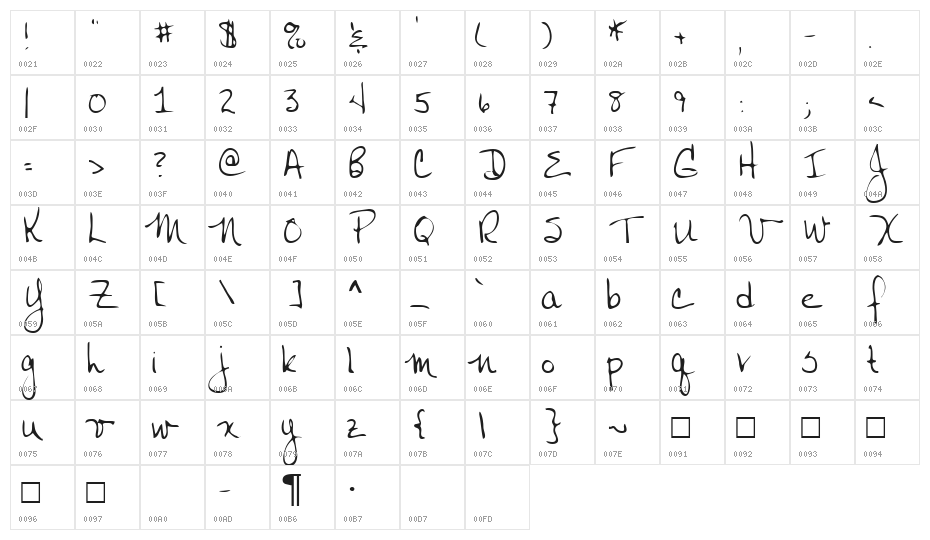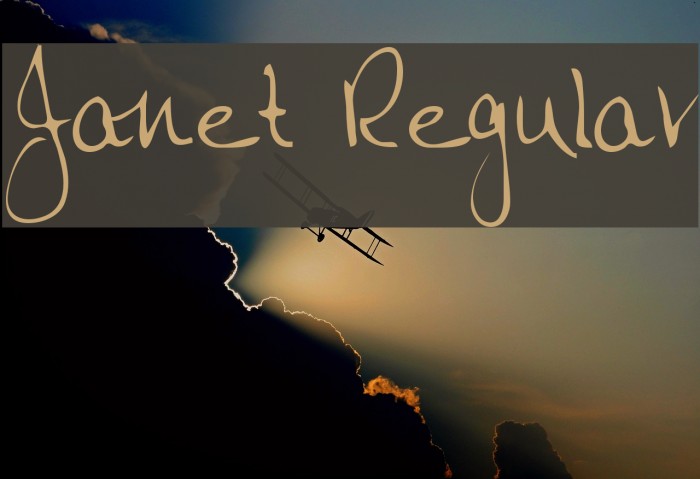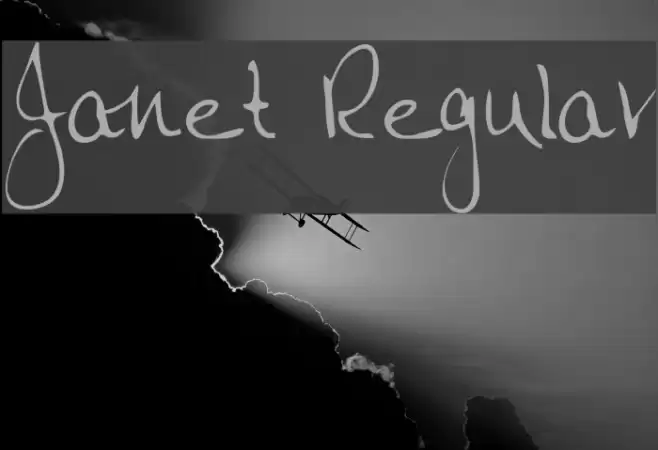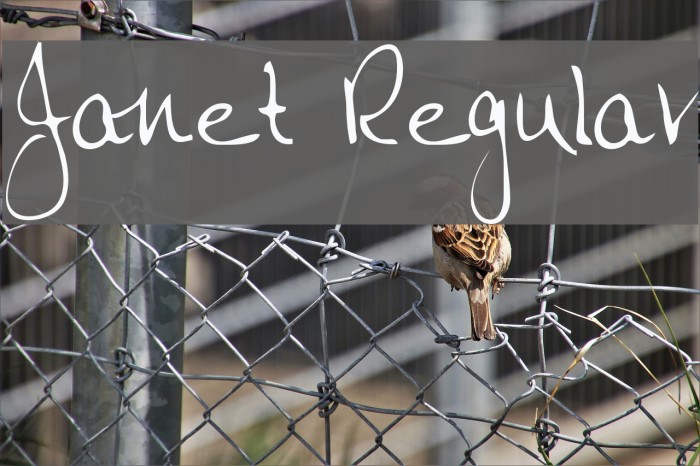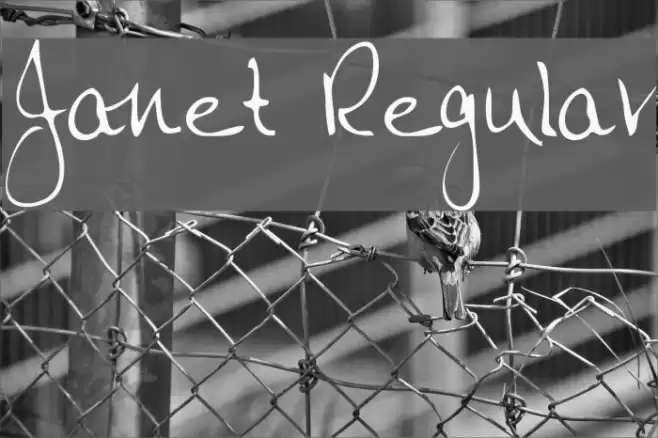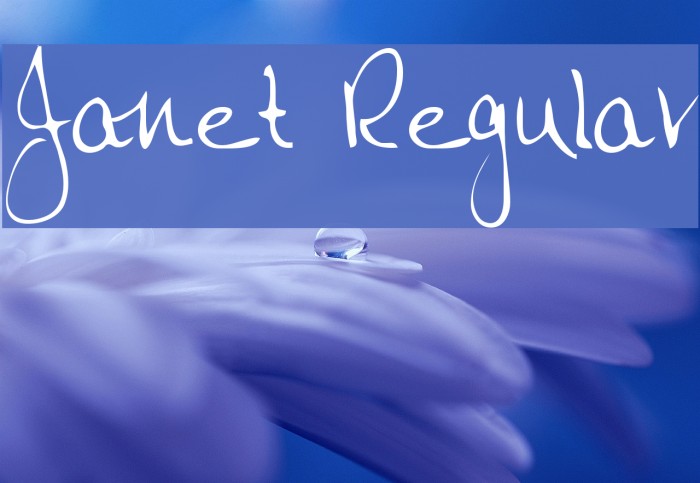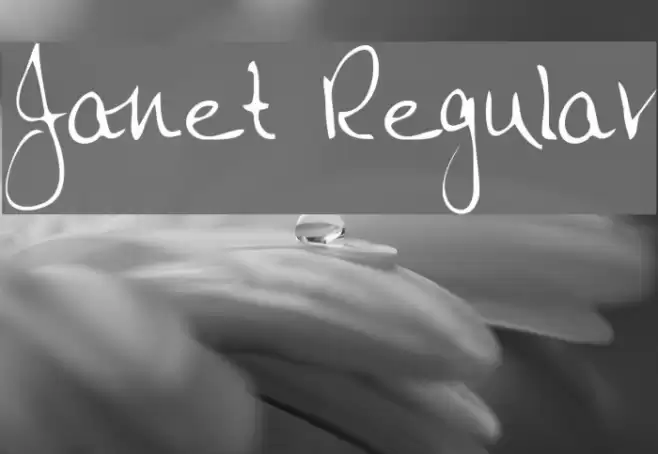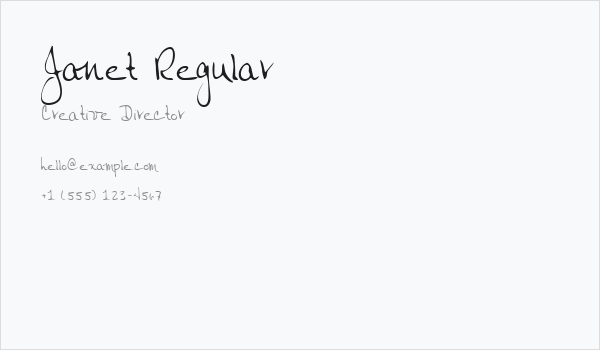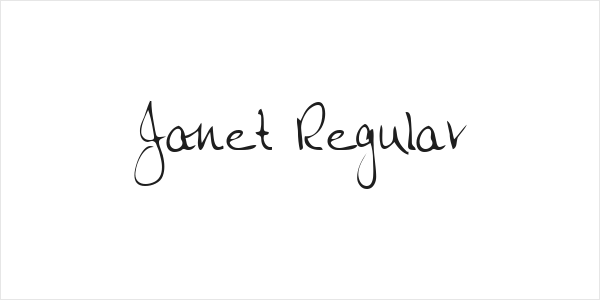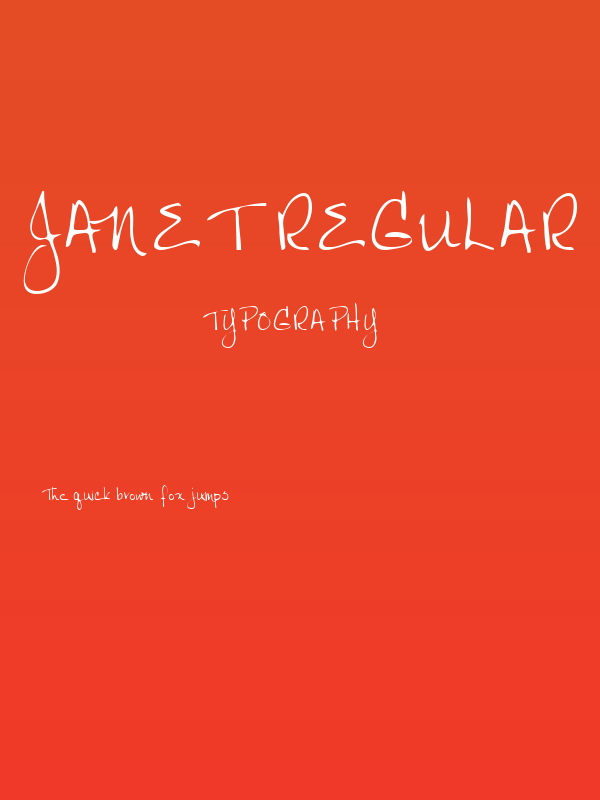
Janet Regular Font
Janet Regular Description
This font features a lively and expressive handwritten style, characterized by its fluid and dynamic strokes. The uppercase letters exhibit a playful yet elegant form, with varying line thickness that adds a sense of movement and personality. The lowercase letters maintain a consistent flow, complementing the uppercase with their slightly whimsical curves. Numbers and special characters are crafted with the same attention to detail, ensuring a cohesive look across all elements. The font's overall appearance is both artistic and approachable, making it suitable for projects that require a personal touch.
| Proposed Projects | Ideal for greeting cards, invitations, personal branding, and creative projects that benefit from a personal, artistic touch. |